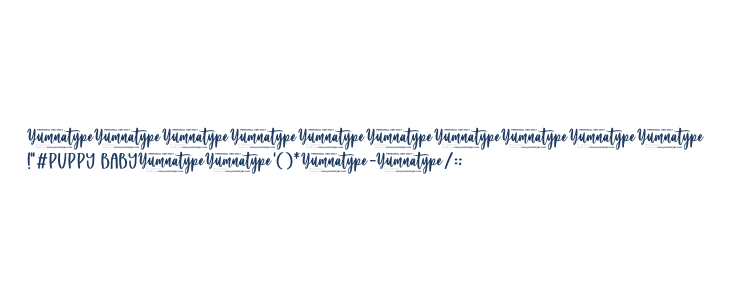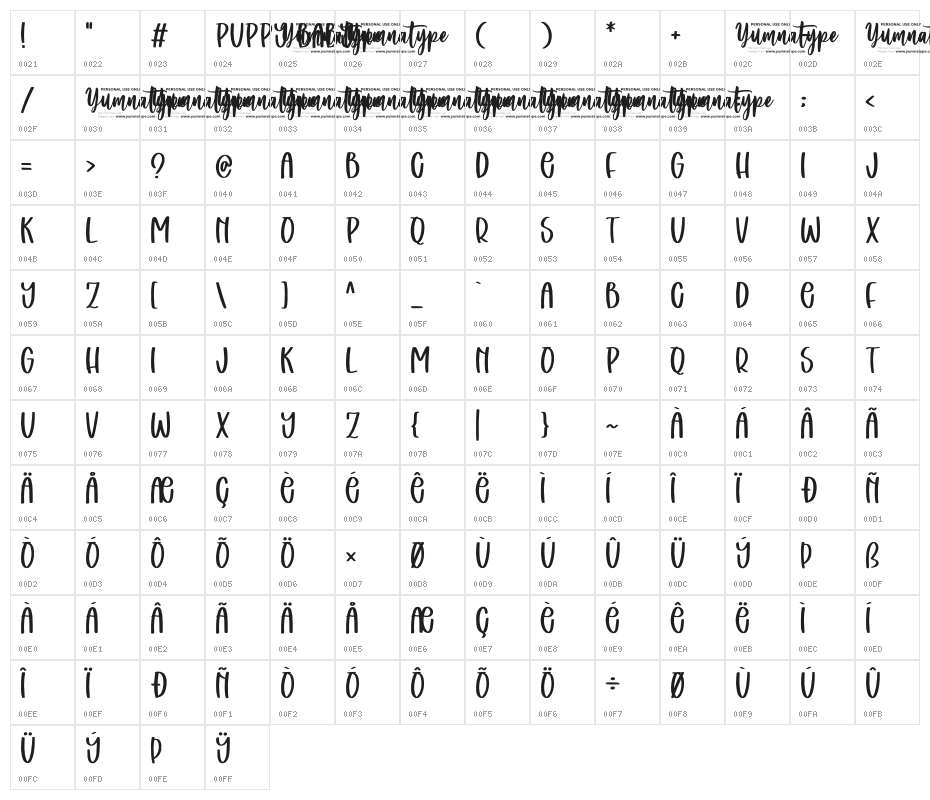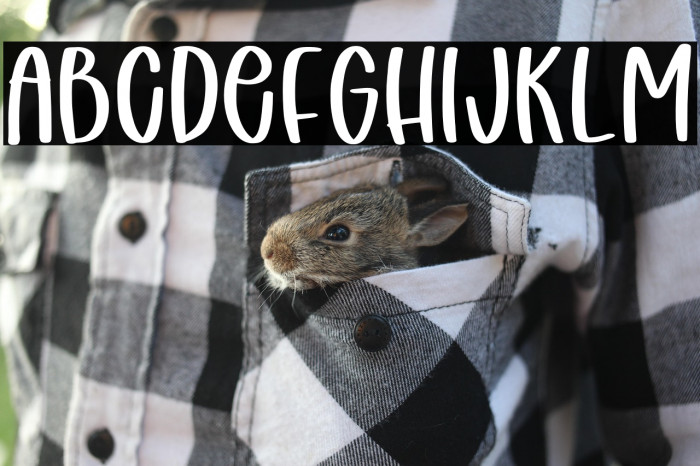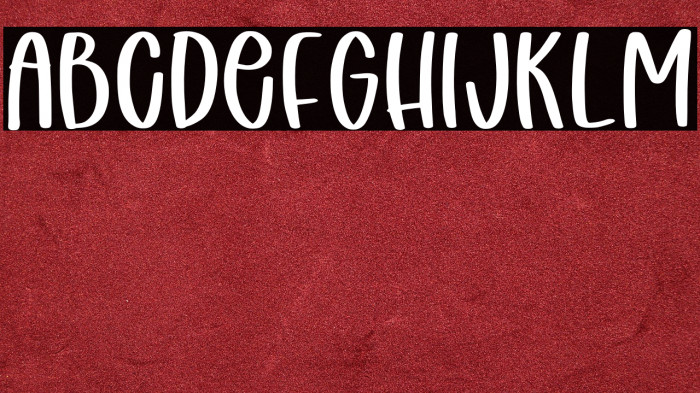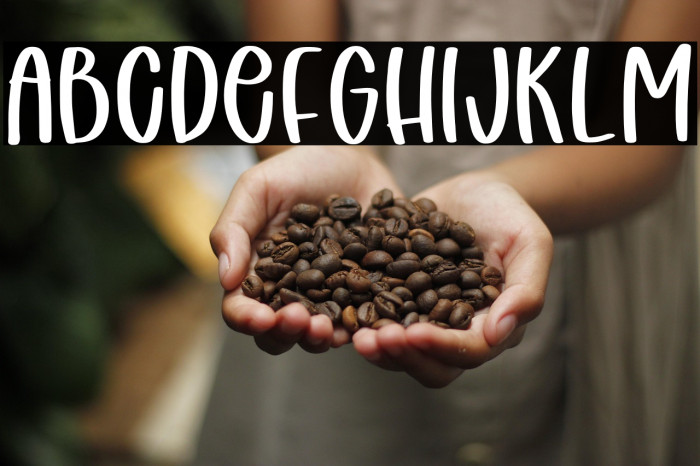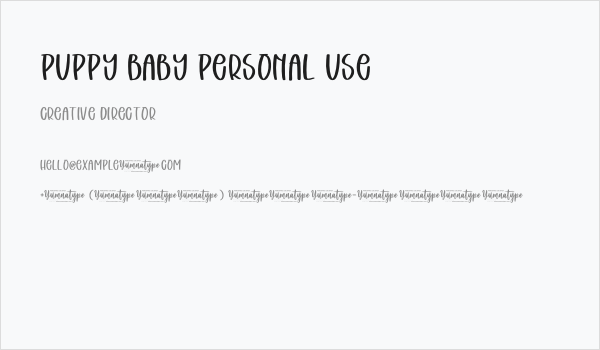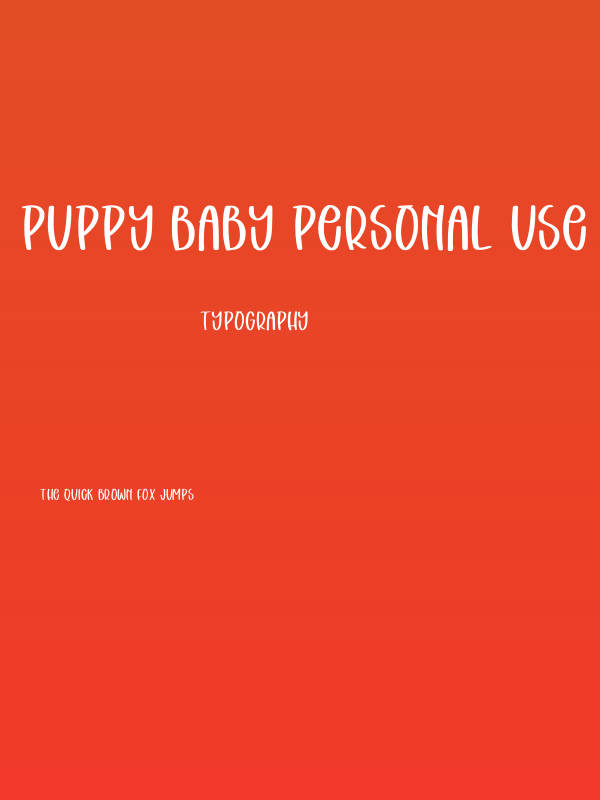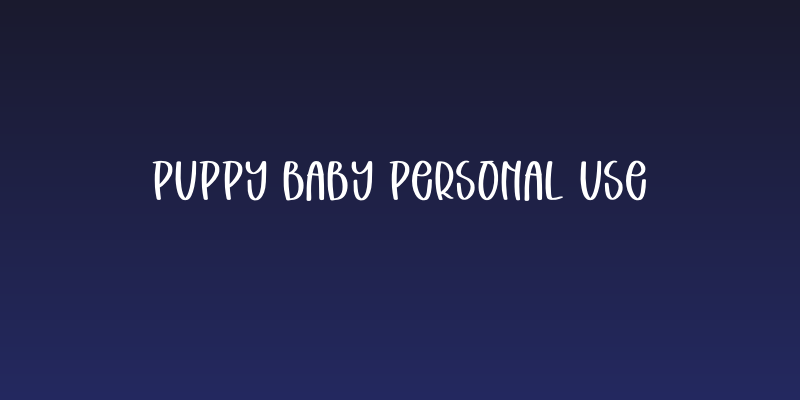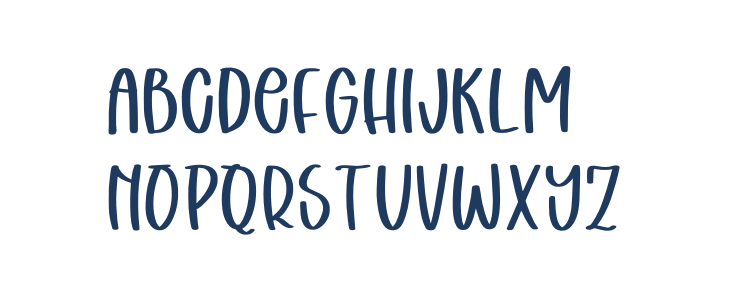
Puppy Baby Personal Use Font
Puppy Baby Personal Use Description
This playful and whimsical font features a handwritten style with smooth, flowing curves and a casual, friendly appearance. The letters are slightly elongated with a consistent stroke width, giving it a cohesive and uniform look. The uppercase and lowercase characters maintain a harmonious balance, making it versatile for various design needs. The font's informal and approachable nature makes it ideal for projects that require a personal touch. Its readability is enhanced by the clear distinction between each character, while the special characters add a touch of creativity and fun.
Overall StylePlayful
Use CaseHeadlines, Logos, Social media graphics
Proposed ProjectsIdeal for children's books, greeting cards, playful branding, and social media graphics.